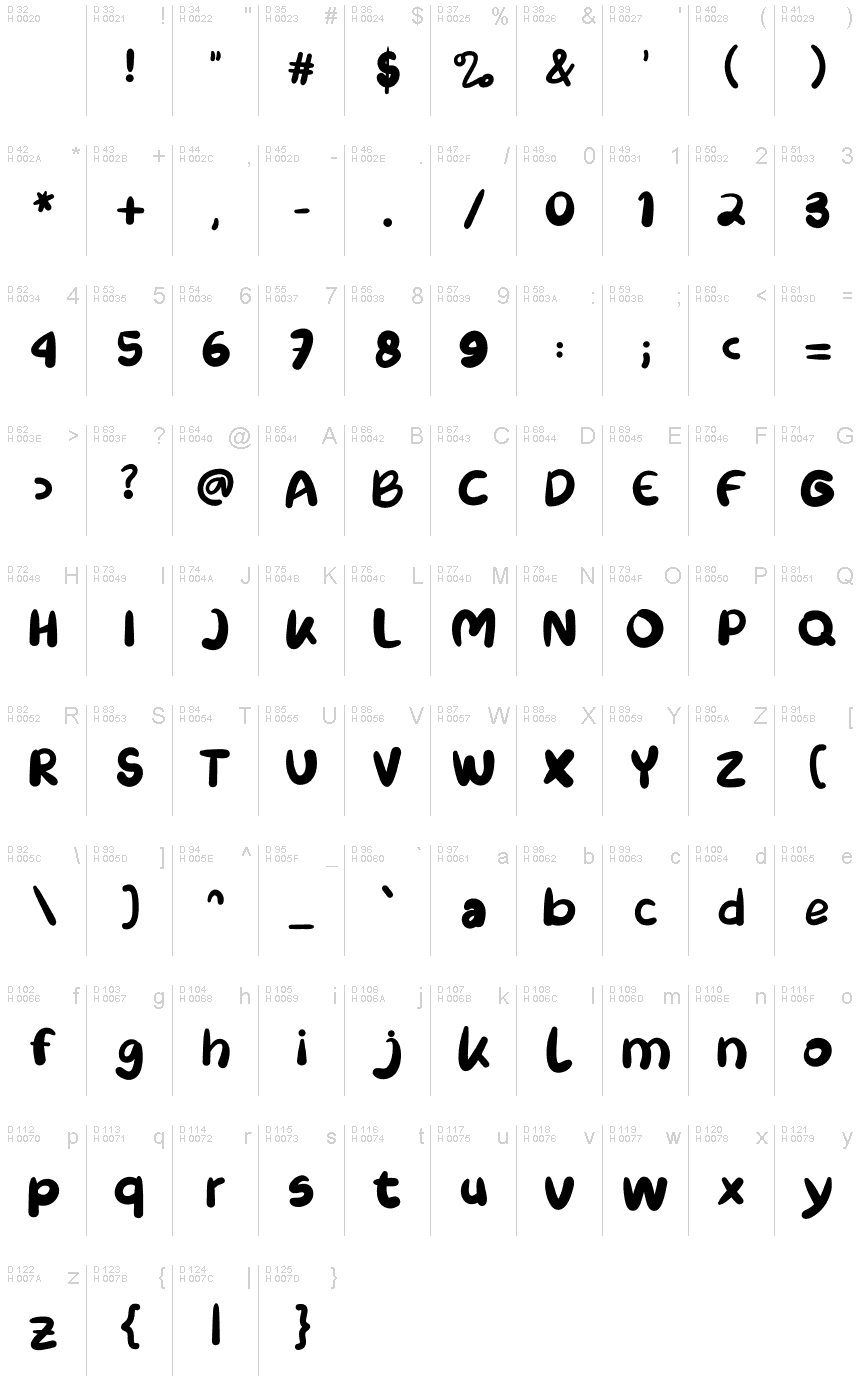
BOHO BABE
Boho Bebe, crafted by the talented Etik Fatimah, stands out as a playful and charismatic display font with a cartoonish flair. Its bold, semi-expanded characters are infused with an energetic whimsy, making it an ideal choice for projects that demand a touch of fun and creativity. From eye-catching marketing materials to engaging children's books, Boho Bebe's unique style adds a lively spark to any visual composition.
With its approachable vibe and distinctive design, this font invites designers to unleash their imagination across various media platforms.